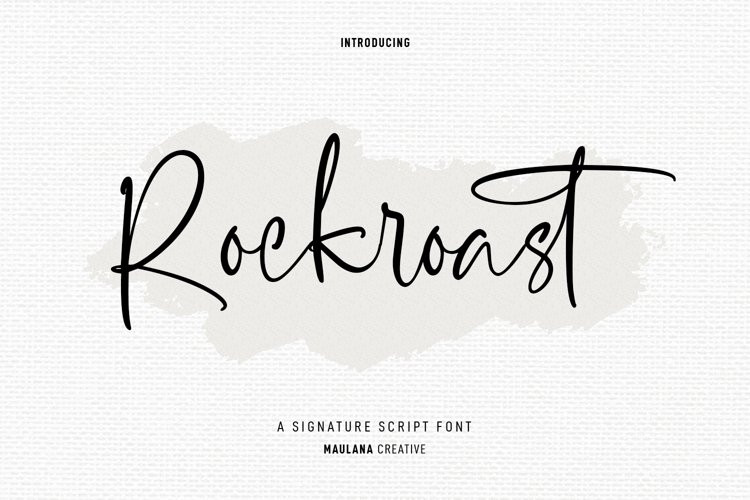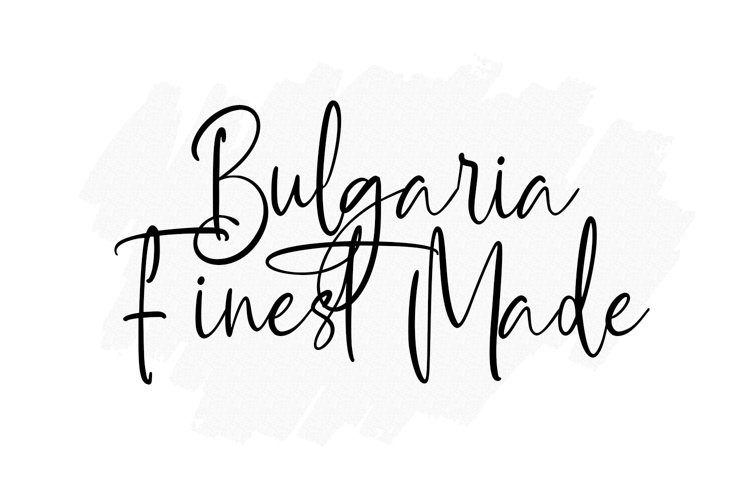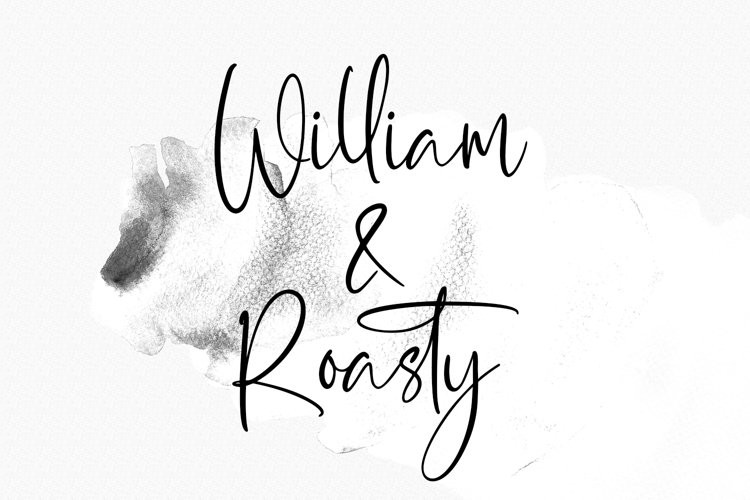
Rockroast Font
Rockroast is a fancy ink-is script font. With light contrast stroke, fun character with a bit of ligatures. To give you an extra creative work. Rockroast font support multilingual more than 100+ language. This font is good for logo design, Social media, Movie Titles, Books Titles, a short text even a long text letter and good for your secondary text font with sans or serif. Make a stunning work with Rockroast font.